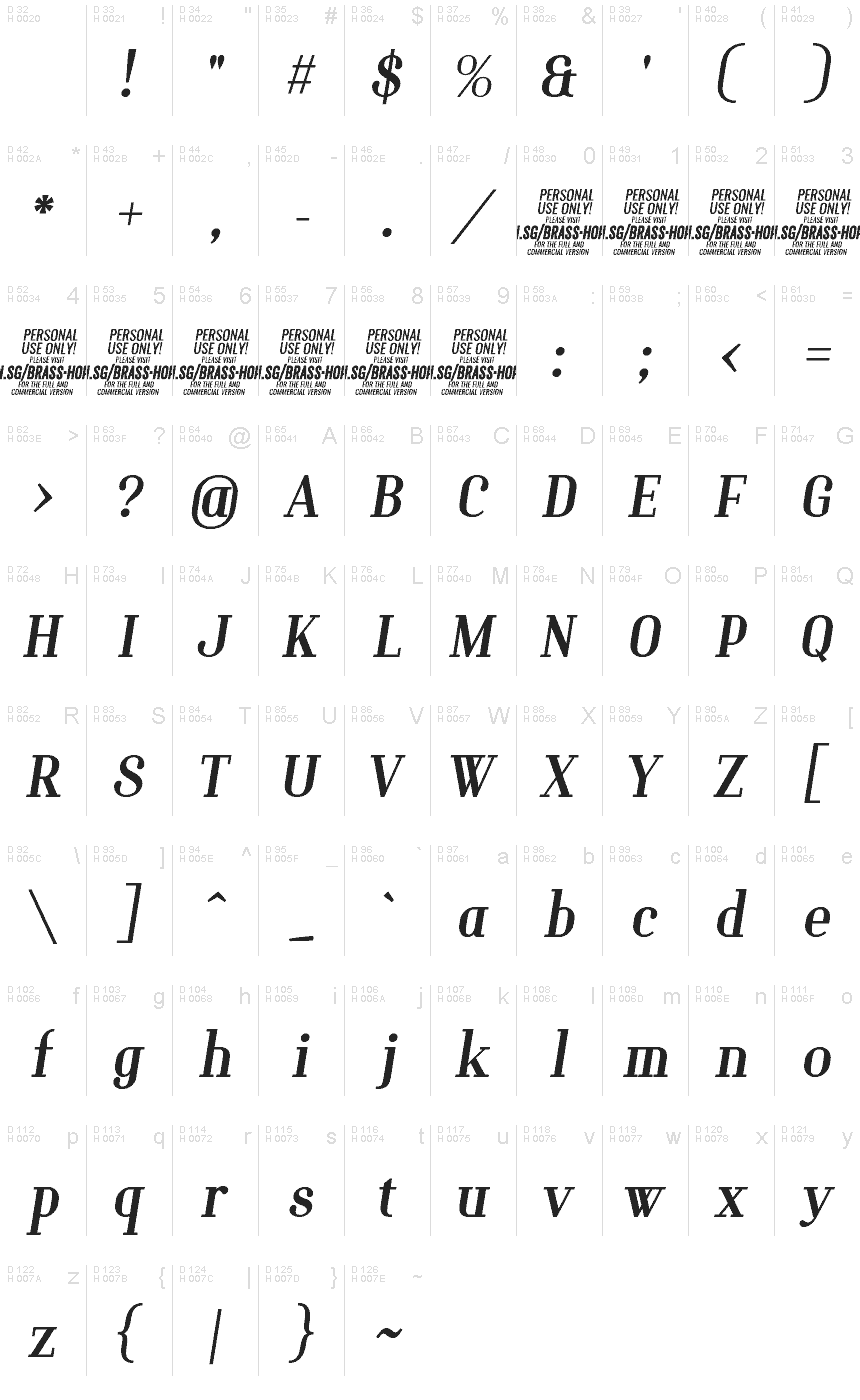
Brass Hopper Body PERSONAL Italic
Brass Hopper Body Italic font by Mans Greback is a classic elegant serif presence writing style with a formal tone and sophisticated combinations. Together with its italic effect, the font brings about a balance of tradition and formality while maintaining an overall classy appeal.
In examples where dignity and richness are important, this free serif font can be used for official cards, classic timeless branding projects, prestigious book covers or even royal stationery designs and invitations.
Brass Hopper Body is a serif font that embodies structural design.
As a modern geometrical typeface, Brass Hopper is characterized by strict shapes and a touch of formality.